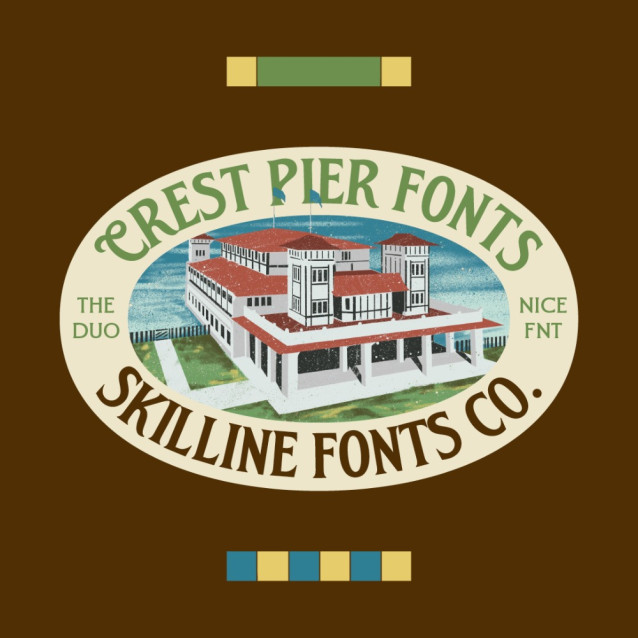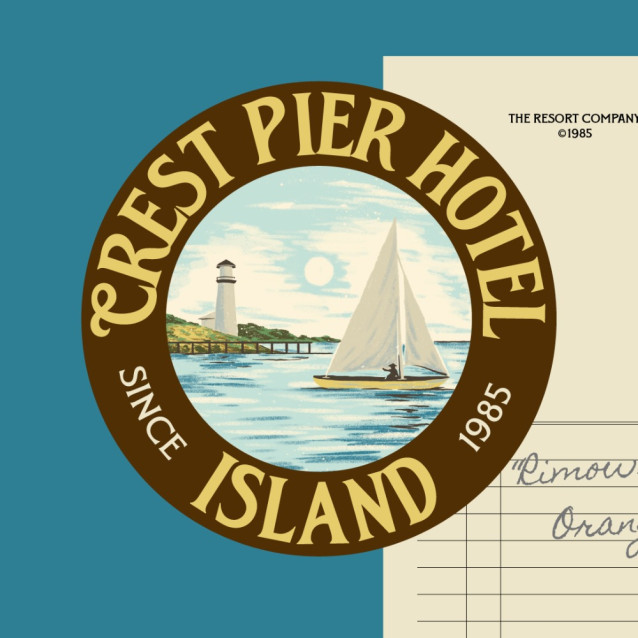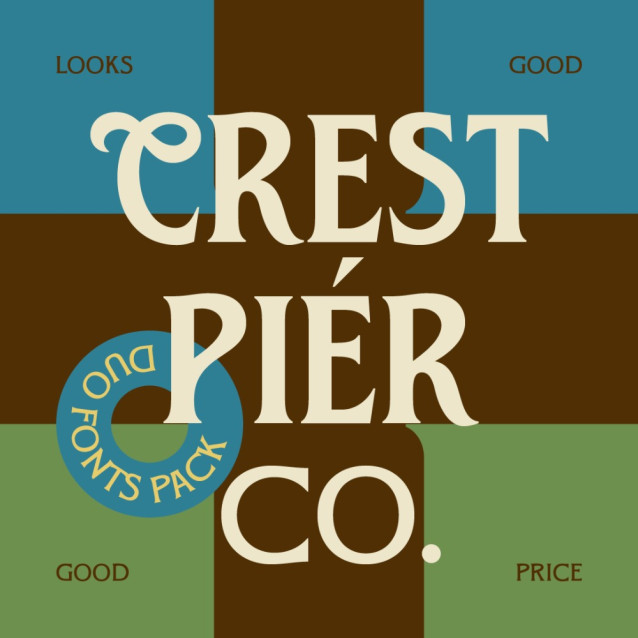
SFC Crest Pier Font
SFC Crest Pier Font is a refined vintage serif duo inspired by classic indies dutch colonial visual, heritage hotel branding, and timeless maritime aesthetics. Designed with elegant high-contrast strokes and soft flared terminals, this typeface blends sophistication and nostalgia into one cohesive system.
More than just a font, SFC Crest Pier also includes a collection of vintage badge illustrations, crest elements, and decorative assets, allowing you to quickly build a strong, premium vintage identity without starting from scratch. Perfect for designers looking to create elegant, heritage-inspired visuals with ease.